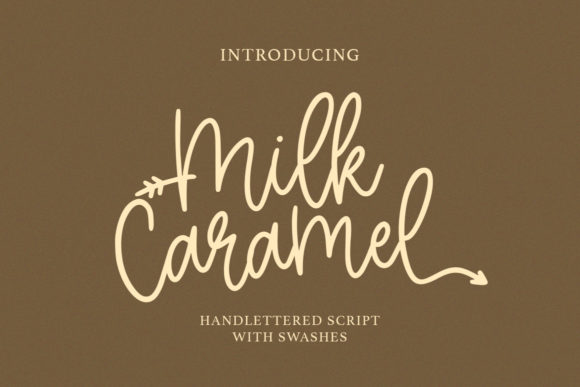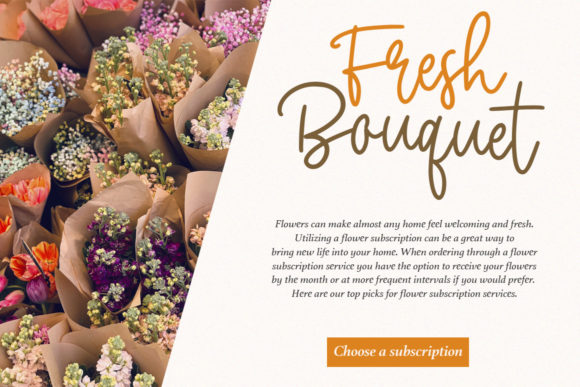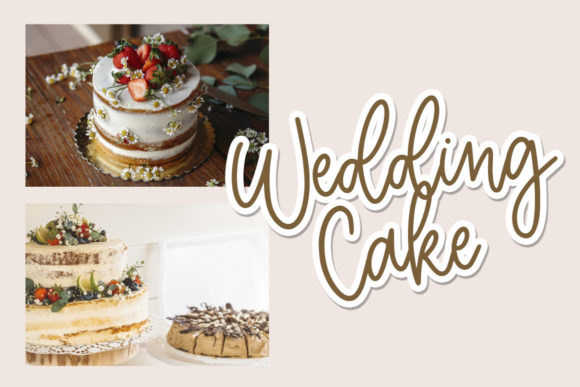
About Milk Caramel Font
Milk Caramel is a beautiful light handwritten font with hearts and love swashes a stunning impact. It will add a luxury spark to any design project that you wish to create! It is the best choice for creating eye catching logos, branding and quotes, and more.